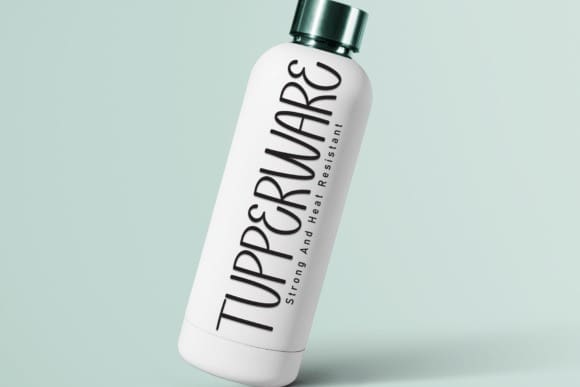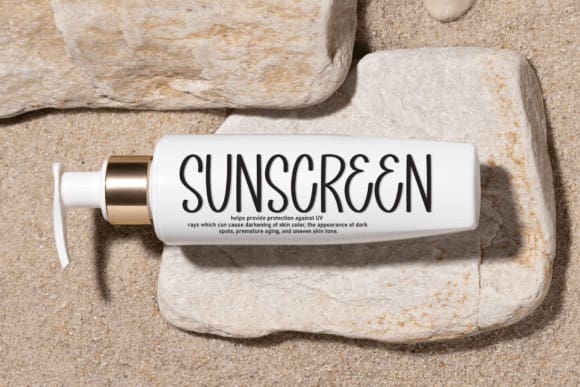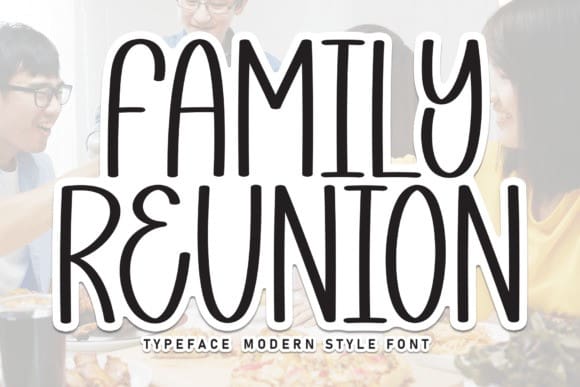
Family Reunion Font
Family Reunion Font is a sweet and friendly handwritten font. Its natural and unique style makes it incredibly fitting to a large pool of designs. The only limit is your imagination!